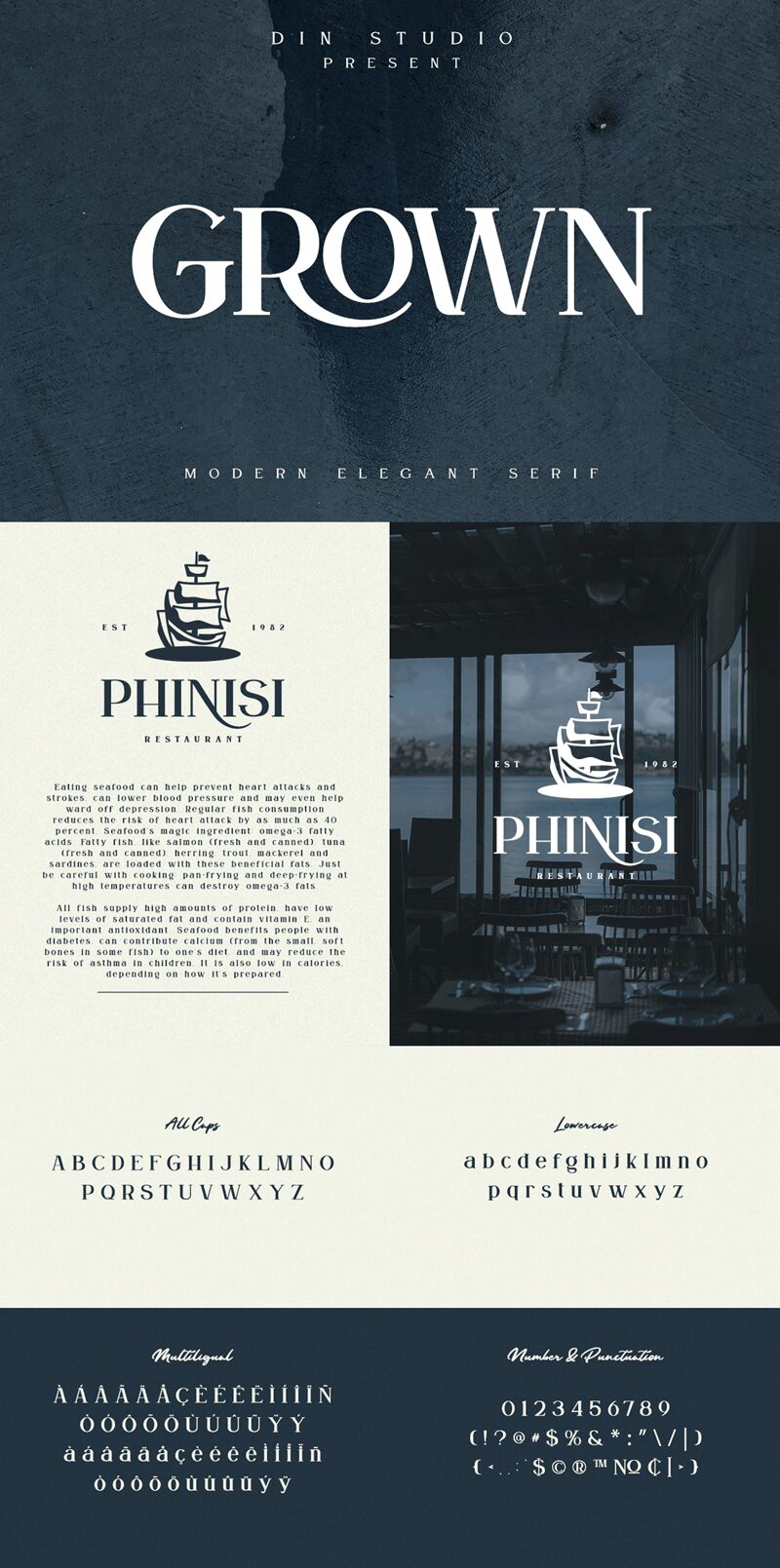
Grown font is an elegant serif typeface designed by Donis Miftahudin of Din Studio.
Introducing GROWN Font. The GROWN font is a modern and clean display (Serif) font. Create from our
talented font designer. The design of typeface will make your design more beautiful and inspiring. This
font will suitable for any project, like branding, print template, logo and etc.
Introducing GROWN Font. The GROWN font is a modern and clean display (Serif) font. Create from our
talented font designer. The design of typeface will make your design more beautiful and inspiring. This
font will suitable for any project, like branding, print template, logo and etc.